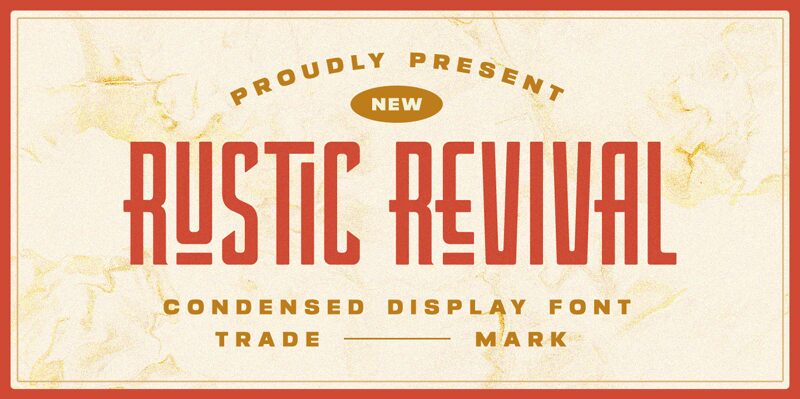
Rustic Revival font, a captivating display typeface from Letterhend Studio, embodies a retro charm that evokes nostalgia while maintaining contemporary relevance. Its condensed form delivers an impactful presence, perfect for making bold statements without overwhelming visuals.
Visually striking with its unmistakable character, this font exudes warmth and authenticity, making it ideal for branding that seeks to connect on a personal level. The charming curves and strong lines not only enhance readability but also infuse designs with personality.
Rustic Revival is exceptionally versatile, finding its place in cafe menus, vintage-inspired posters, and handmade product packaging. With its unique style and engaging appeal, this font invites creativity across various design contexts while ensuring a memorable impression on audiences.